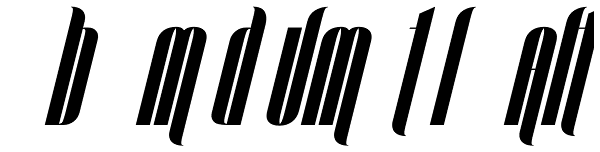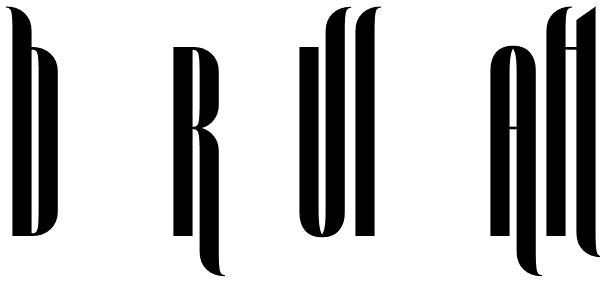
Taboo
Taboo is a versatile font family inspired by the magnificent geometric experiments made by Armenian lettering artist Fred Africkian during the late 1970s. Virtually unknown in the west, Africkian was one of the most talented eastern block artists...